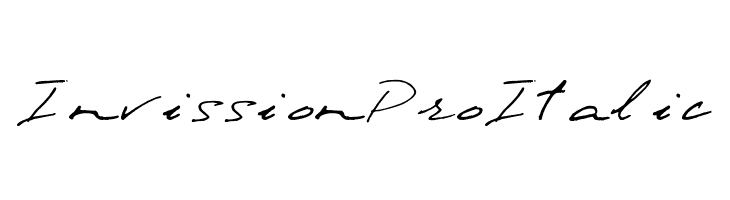
A fluid, cursive handwritten font with elegant slant and natural flow.
A graceful script font with fluid, cursive strokes and elegant connections.
A sophisticated, elegant handwritten font with fluid, continuous strokes.